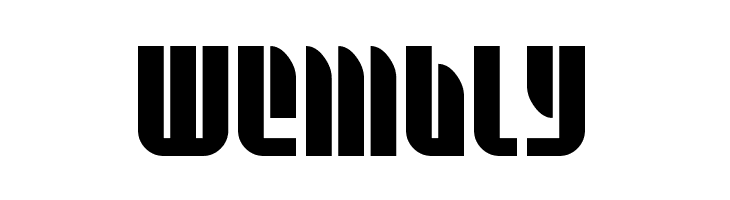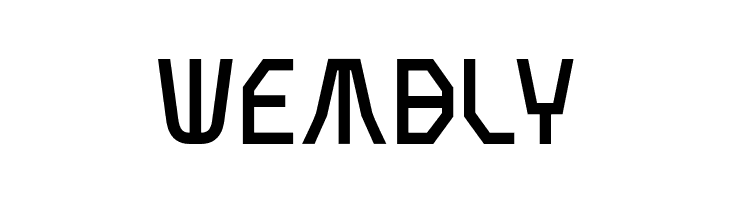
BD Alm Font
A bold, geometric font with a modular and modern design.
BDBankwell Font
A bold, futuristic font with geometric shapes and a dynamic style.
BDMeter Font
A bold, geometric font with sharp angles and a futuristic look.